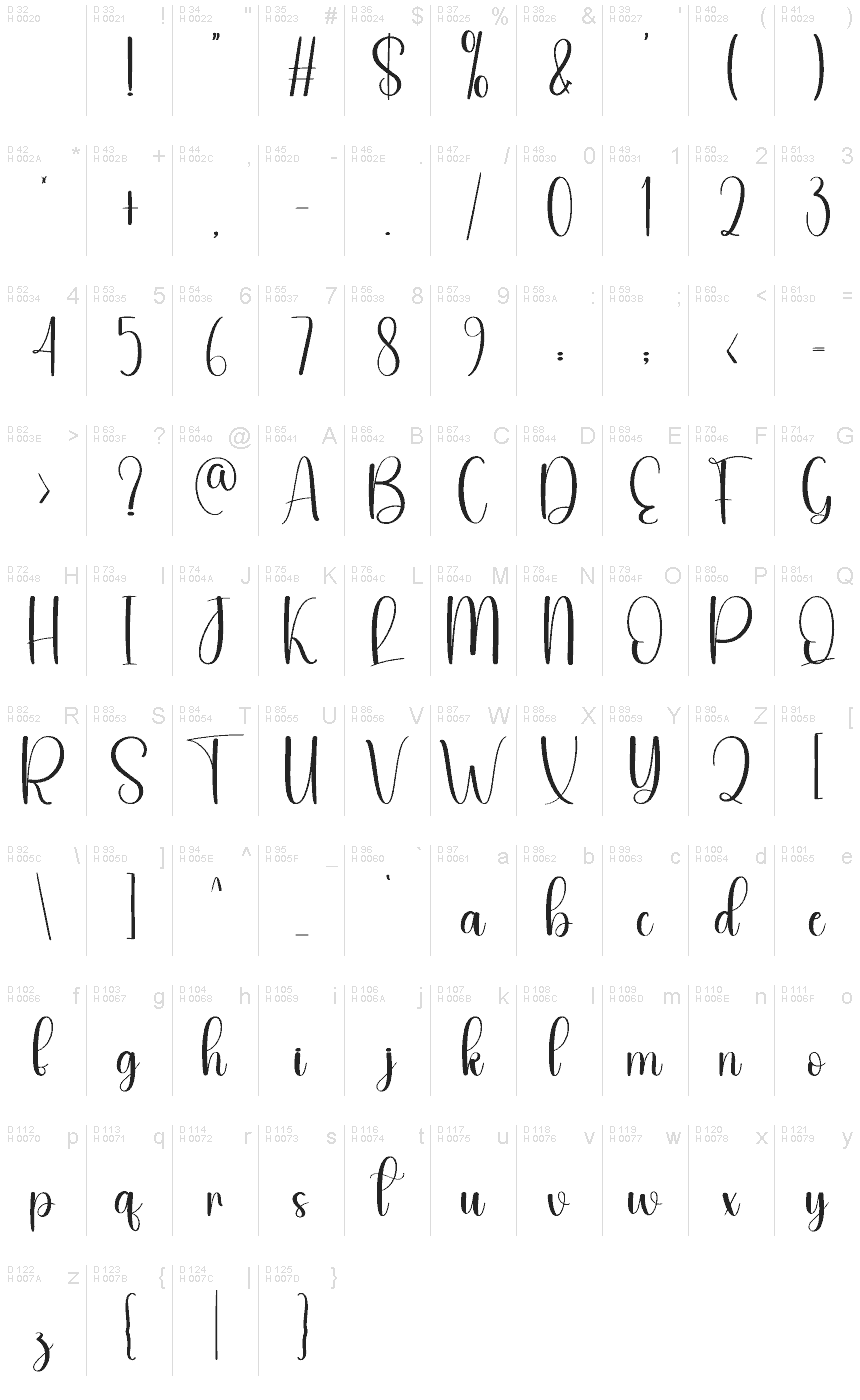
Opening
Opening font by Andi Moz is a highly aesthetic, stylish handwritten font that looks delicate while retaining a recognizable appearance. Forms are elegant and flowing, letters are beautifully connected, and every word has a modern script look to it. This condensed font features distinctive curves which provide decorative flair for the audience.
Use this sophisticated free handwritten font to enhance your logos, stationery items, invitations, weddings materials printing or digital. Opening would also make an impeccable choice for branding projects or marketing materials like ads and posters. Do not hesitate using it further in packaging design as well as cards of all types: business cards or postcards even!